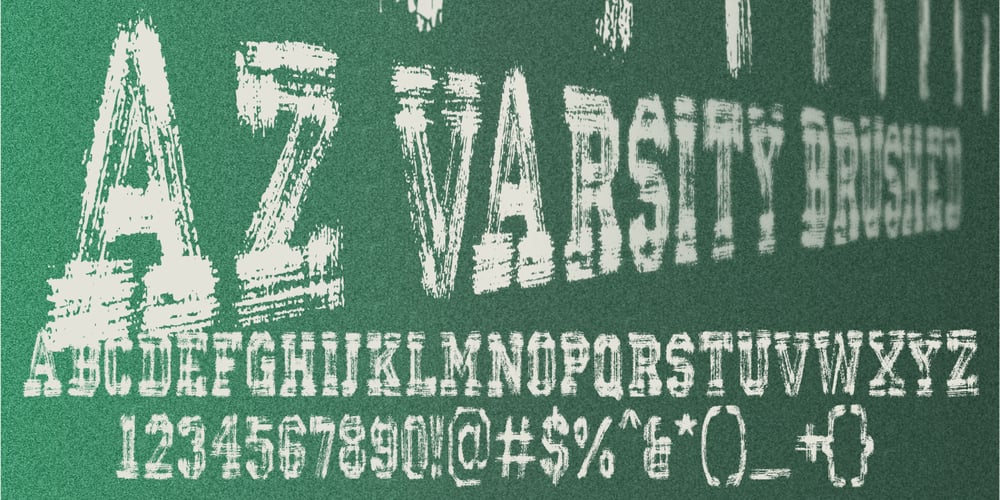
AZ Varsity Brush Font Family was designed by published by Artist of Design. AZ Varsity Brush contains 1 styles and family package options. AZ Varsity Brushed font was inspired from a combination of typical collegiate t-shirts designs and also the current wave of Hollister t-shirt designs (rough painted look). This font utilizes an “old look” to the line work which is designed to have a “worn feel” to it. It is designed to compliment it’s sister font; AZ Vintage. This font is designed for use as a worn and antiqued headline or subheadline.